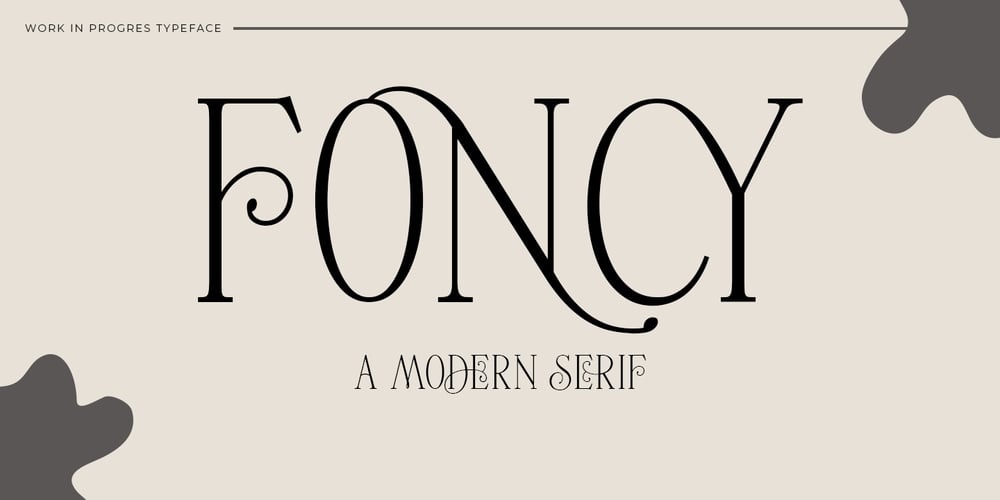
Foncy
Foncy font
Foncy Font Family was designed by Kurniadi Saputra and published by Cooldesignlab. Foncy contains 3 styles and family package options. Foncy Serif features open, ligature and alternative types that are packaged in 3 fonts: Regular, Italic and Bold. Foncy fonts include uppercase, lowercase, numbers, punctuation and multilingual support.Foncy Serif is an elegant and unique serif font, thin yet impressive. Expertly designed to make your creations look amazing, this font will look beautiful and impressive with a variety of characters to display and is perfect for use on various ideas such as Editorial Projects, Logo Designs, Weddings, Clothing Branding, Product Packaging, Magazine Headers or simply as a stylish text overlay for any background image which will make your presentation more stunning and stand out. Foncy Serif also supports Multi Language and is PUA encoded !!Give us “likes” and support our work. Thank you very much.Have a nice day and Enjoy!!!